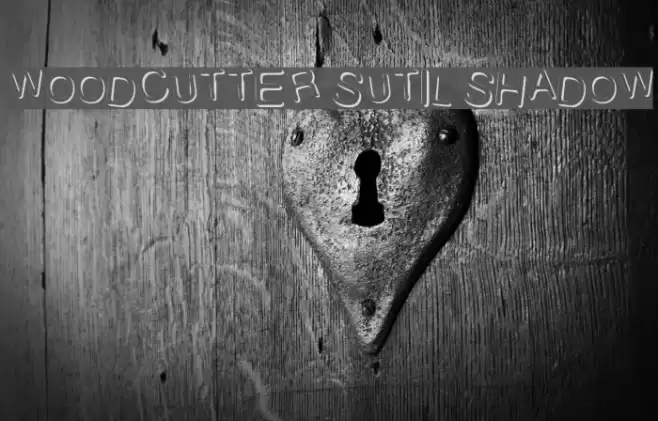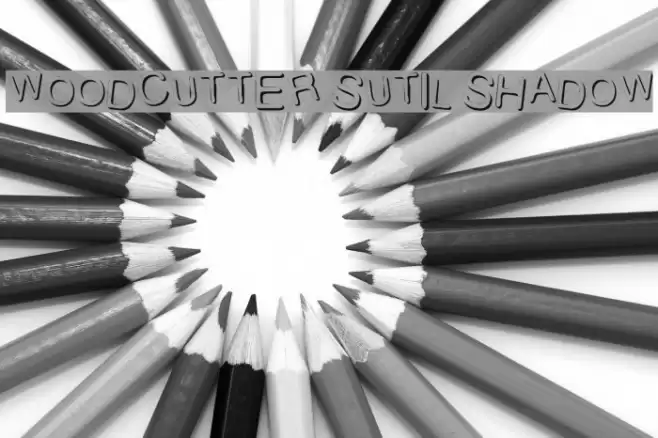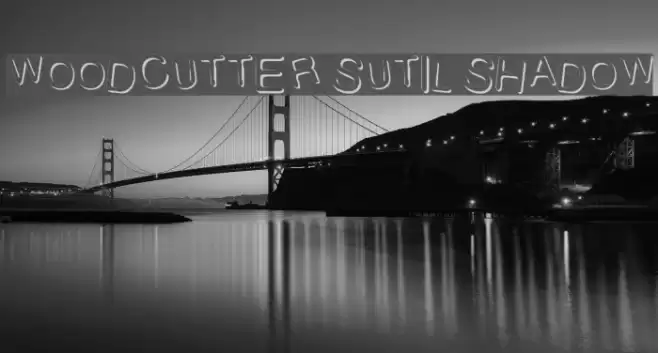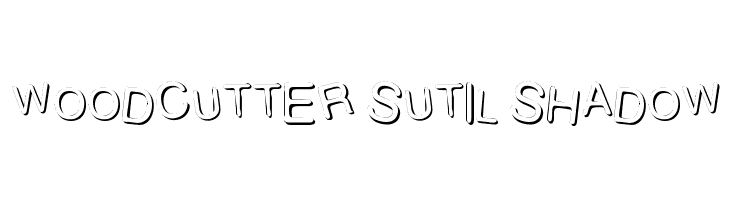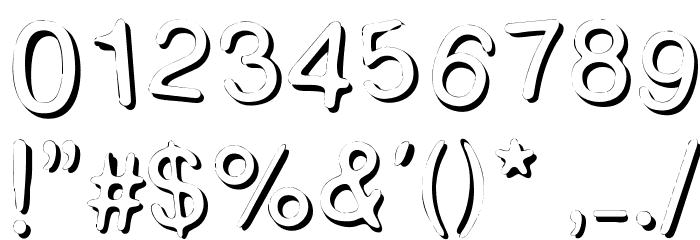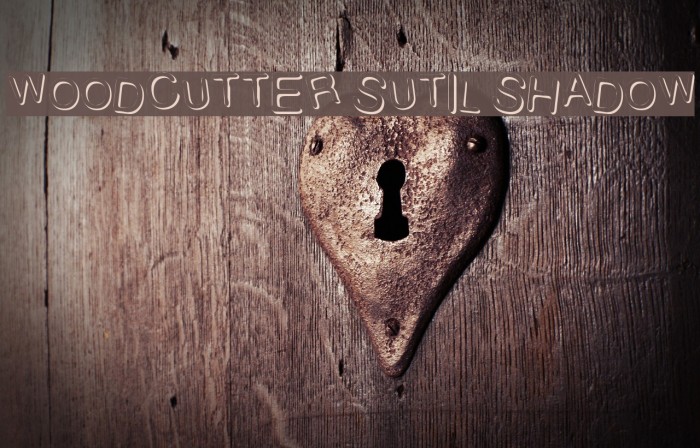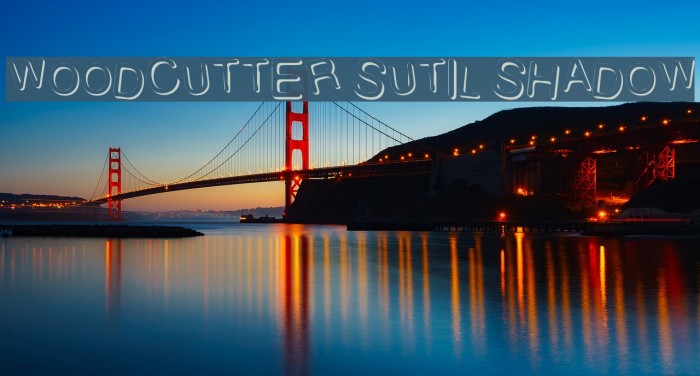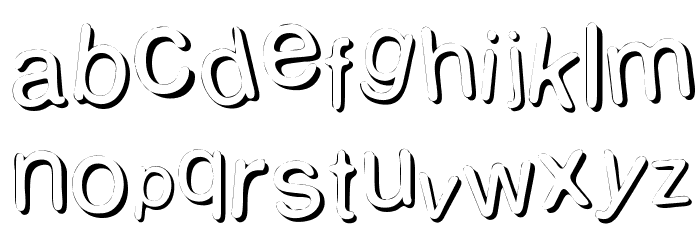
WOODCUTTER SUTIL SHADOW Font
WOODCUTTER SUTIL SHADOW Description
This font features a playful and bold design with a shadow effect that gives it a three-dimensional appearance. The characters are rounded and slightly irregular, adding a whimsical touch. The uppercase and lowercase letters maintain a consistent style, with a casual and approachable feel. The numbers and special characters follow the same design principles, ensuring uniformity across all elements. This font's unique shadowing creates a sense of depth, making it stand out in any design project.
A playful, bold font with a 3D shadow effect and rounded characters from Cartoon fonts.
- Proposed Projects: Ideal for children's books, playful branding, posters, and creative invitations.
- Overall Style: Playful, Whimsical